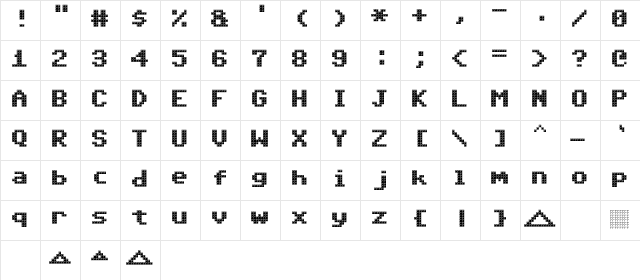
Triad XS Regular
| Foundry | [FreakyFonts] |
| Designer | .:ck!:. |
Design Context for Triad XS Typeface
Triad XS takes a measured approach to typography — its balanced proportions and neutral character make it a reliable workhorse for both digital and print work.